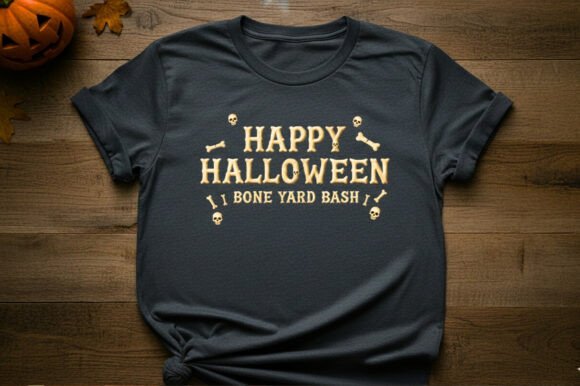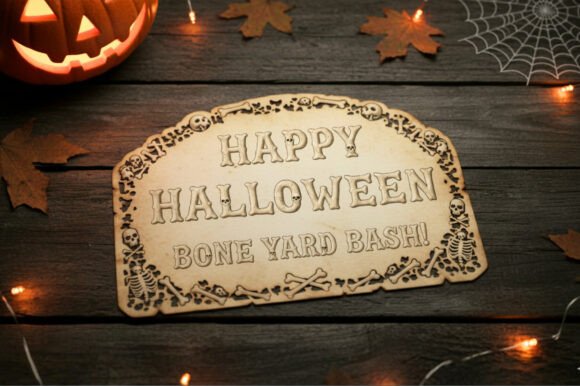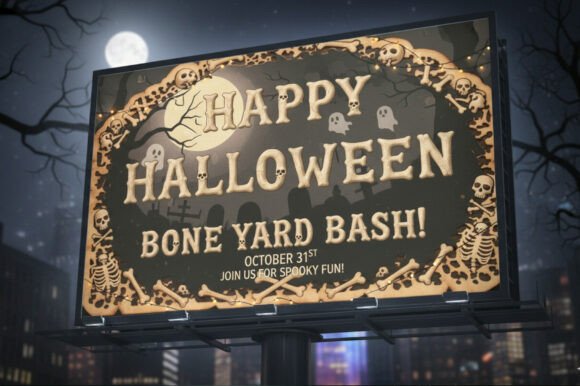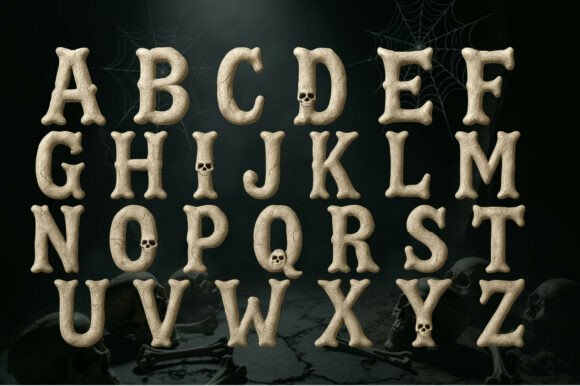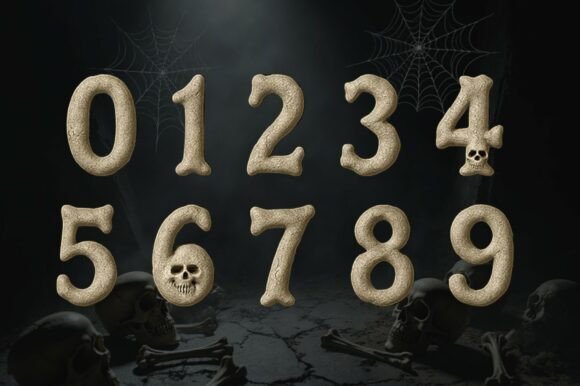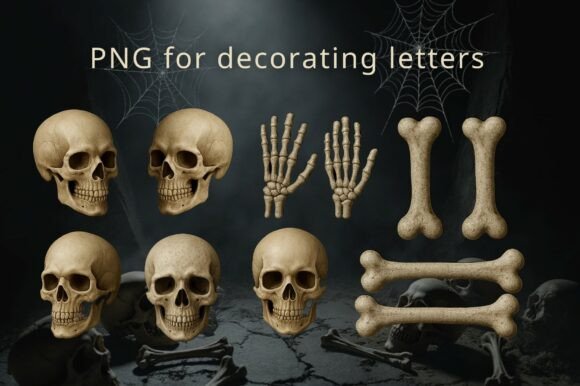
Introduction to Halloween Bone Yard Font
As a designer, there’s nothing quite like the thrill of bringing a spooky idea to life. Whether it’s a Halloween party invitation, a horror poster, or a haunted house sign, the right font can make all the difference. And that’s where the Halloween Bone Yard Font comes in – a free, high-quality design resource that’s guaranteed to add a chilling touch to your creative project.
Imagine being able to download a font with a transparent background, perfect for layering over images or using as a standalone graphic. The Halloween Bone Yard Font offers just that, with its bold and eerie 3D style featuring bone textures and creepy skull details. Whether you’re a seasoned pro or a DIY enthusiast, this font is the ultimate choice for scary, spooky, and horror-themed designs.
Key Features of Halloween Bone Yard Font
- High-quality design resource ideal for creative projects, especially those with a spooky or eerie theme.
- Features a transparent background, allowing for seamless integration into any design without the hassle of removing a background.
- Includes a range of unique characters, including skulls, bones, and other Halloween-themed elements, perfect for adding a spooky touch to any design.
- Designed with a bold, gothic style, making it perfect for use in posters, flyers, and other marketing materials.
Honest Review: Halloween Bone Yard Font
I recently stumbled upon the Halloween Bone Yard Font, and I must say it’s been a game-changer for my spooky-themed design projects. As a designer, I’m always on the lookout for high-quality design resources that can elevate my creative work. This font definitely delivers.
- ✨ Unique Design: The Halloween Bone Yard Font has a distinctive, hand-crafted feel that adds a touch of personality to any project.
- ✨ Transparent Background: The transparent background makes it easy to layer this font over images or other design elements.
However, there are a few limitations to consider: ⚠️ Limited Character Set: The font only includes a limited set of characters, which may not be suitable for longer texts or more complex design projects.
Overall, I’m thoroughly impressed with the Halloween Bone Yard Font. Its unique design, free download, and transparent background make it an excellent choice for designers working on spooky-themed projects. While it may have some limitations, I believe its benefits far outweigh its drawbacks.
Halloween Bone Yard Font
The Halloween Bone Yard Font is a high-quality design resource perfect for creative projects. It’s a free download that offers a unique and spooky aesthetic, making it ideal for Halloween-themed designs.
For the best results, use the Halloween Bone Yard Font on a transparent background to create a spooky and eerie effect. You can also pair it with other fonts and design elements to create a unique and creative look.
The Halloween Bone Yard Font is perfect for a variety of creative projects, including:
- Halloween-themed designs and invitations
- Spooky and eerie graphics and illustrations
- Haunted house and horror-themed designs
- Creepy and kooky social media graphics